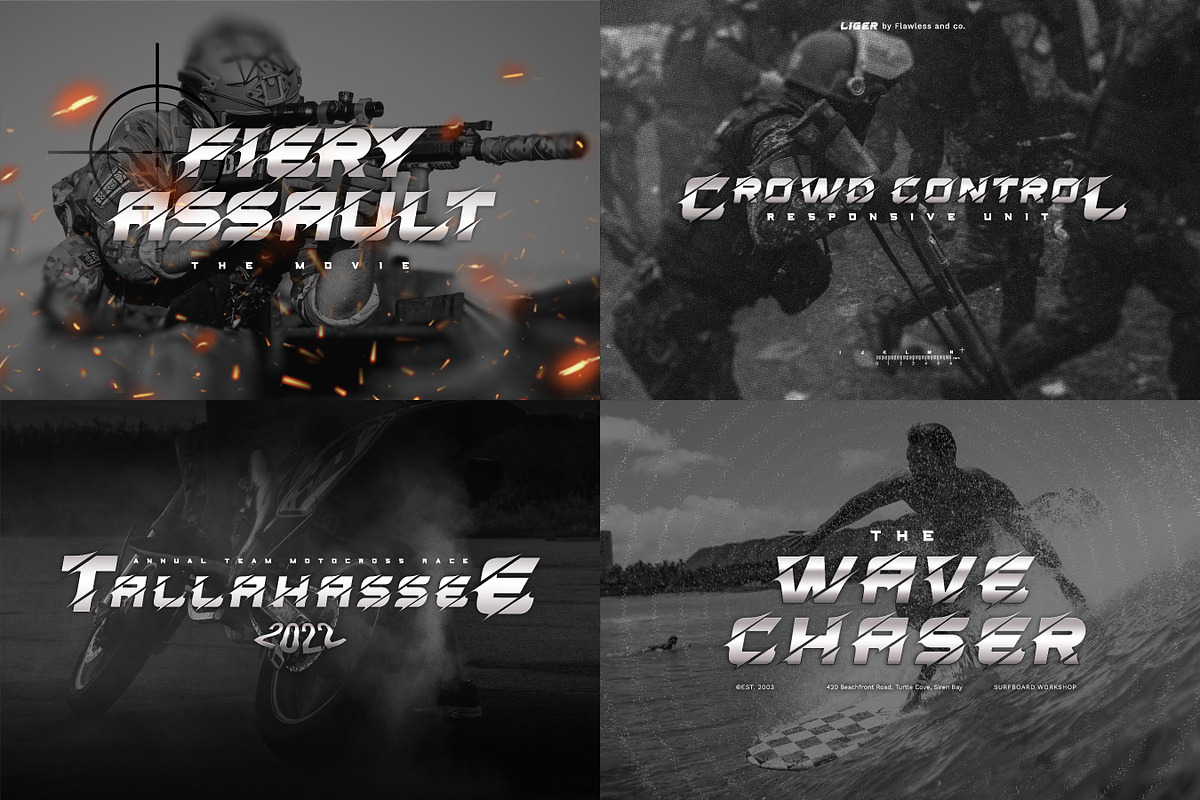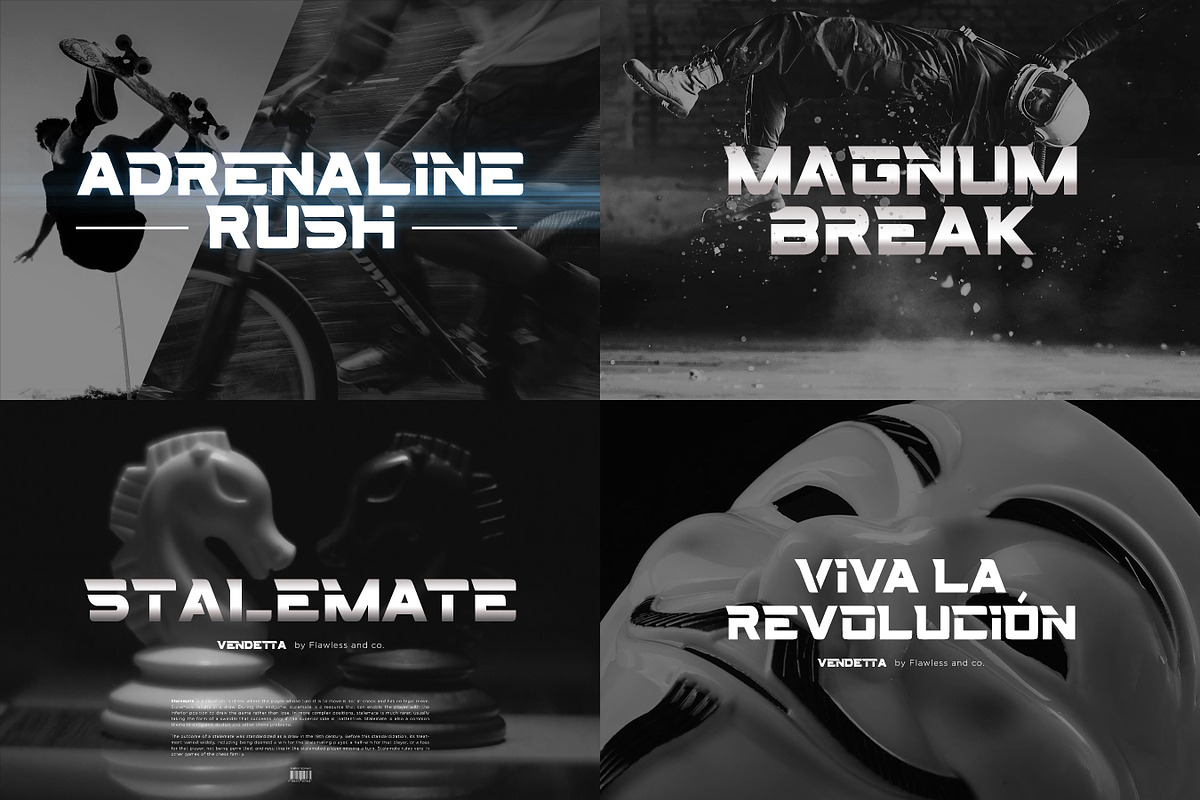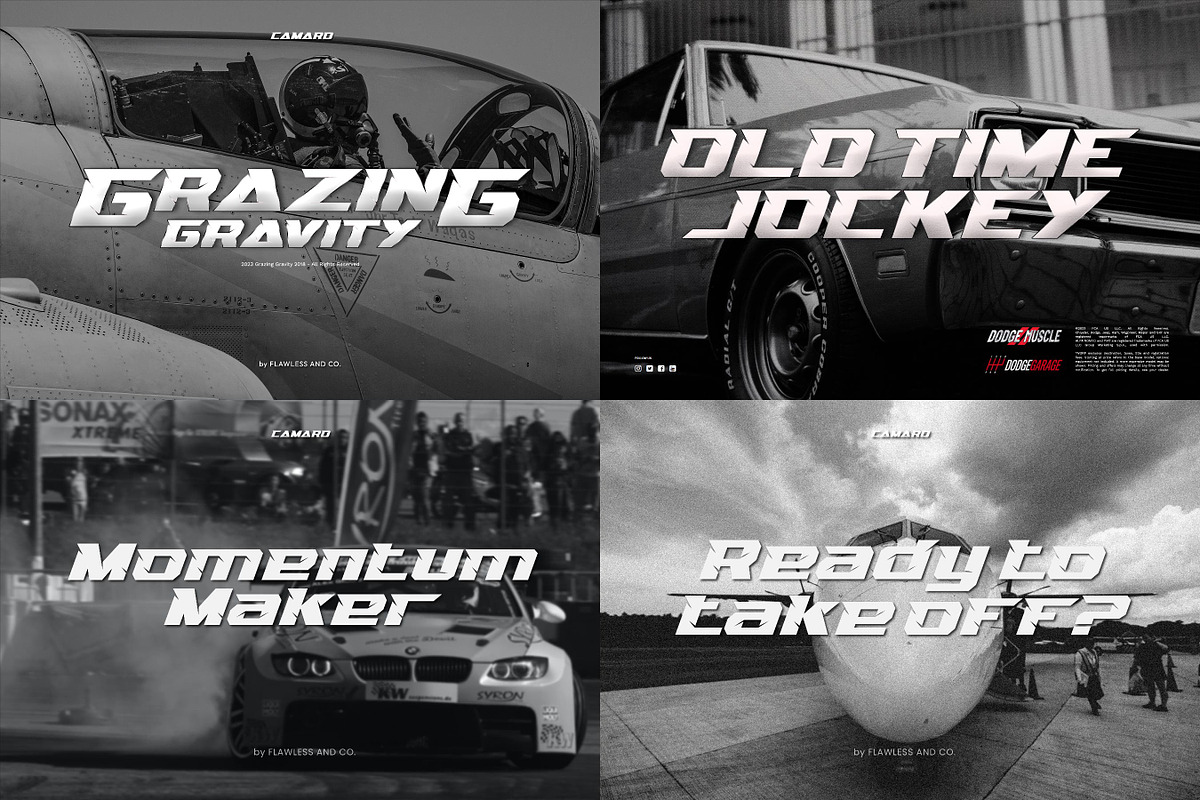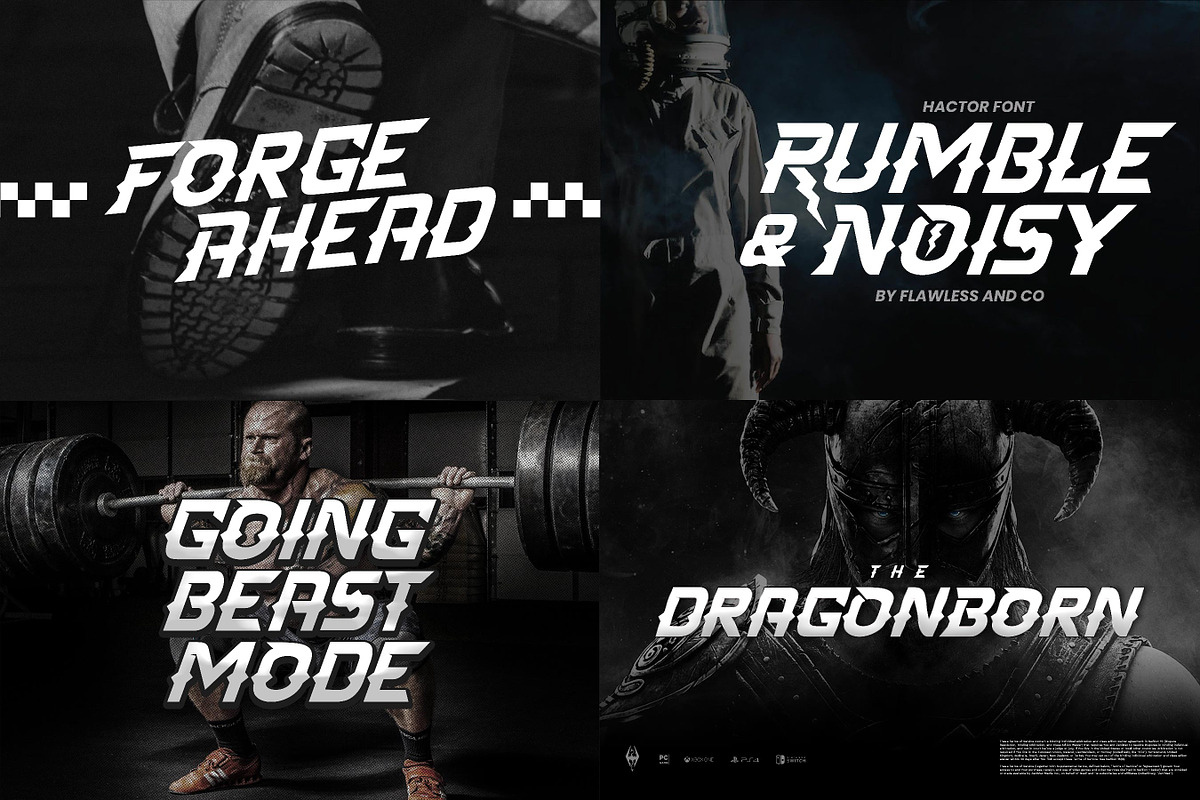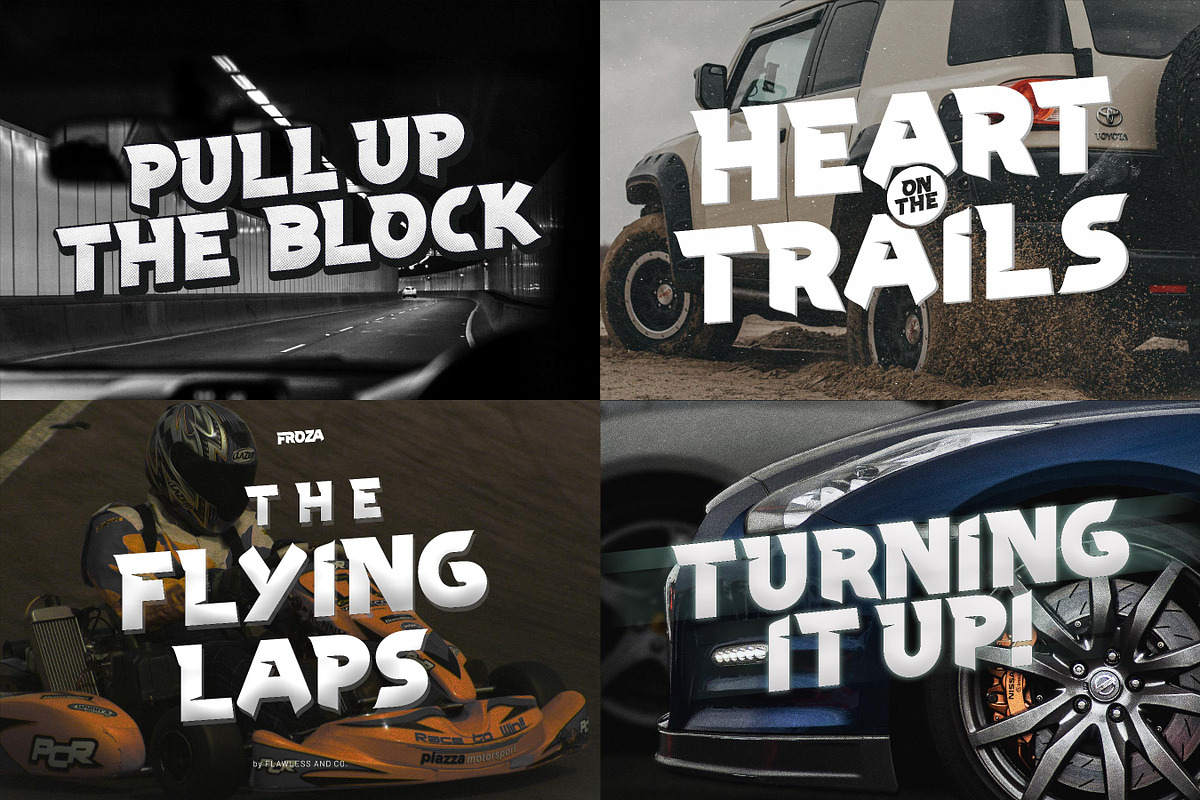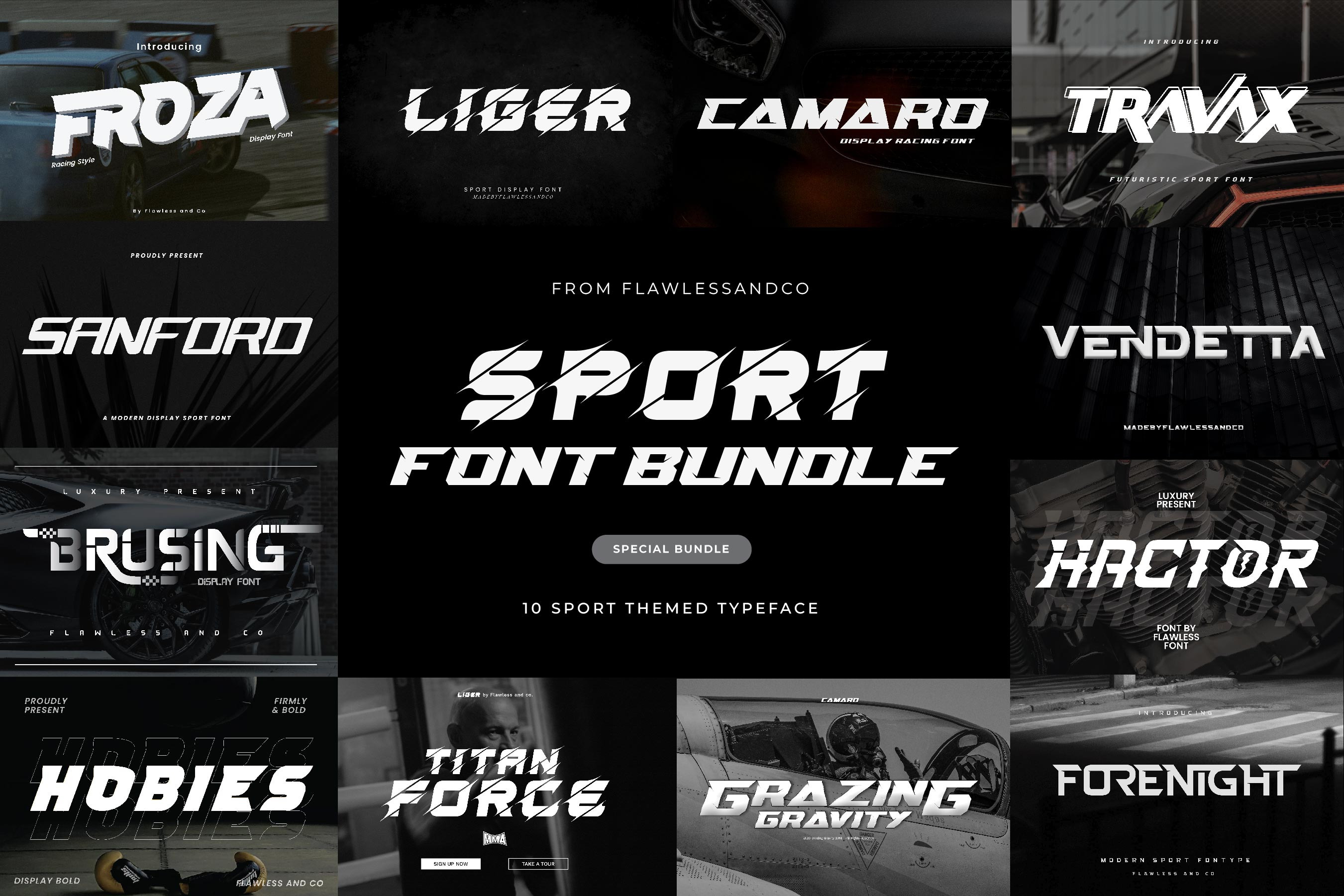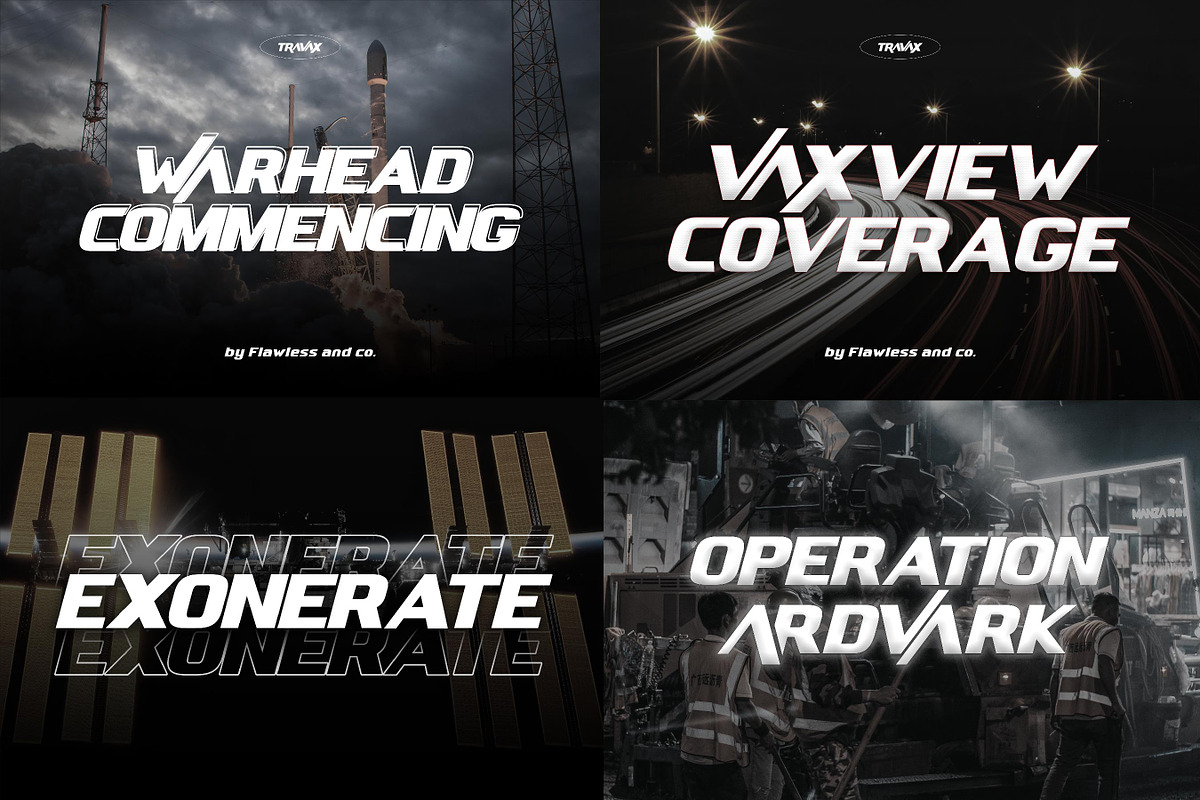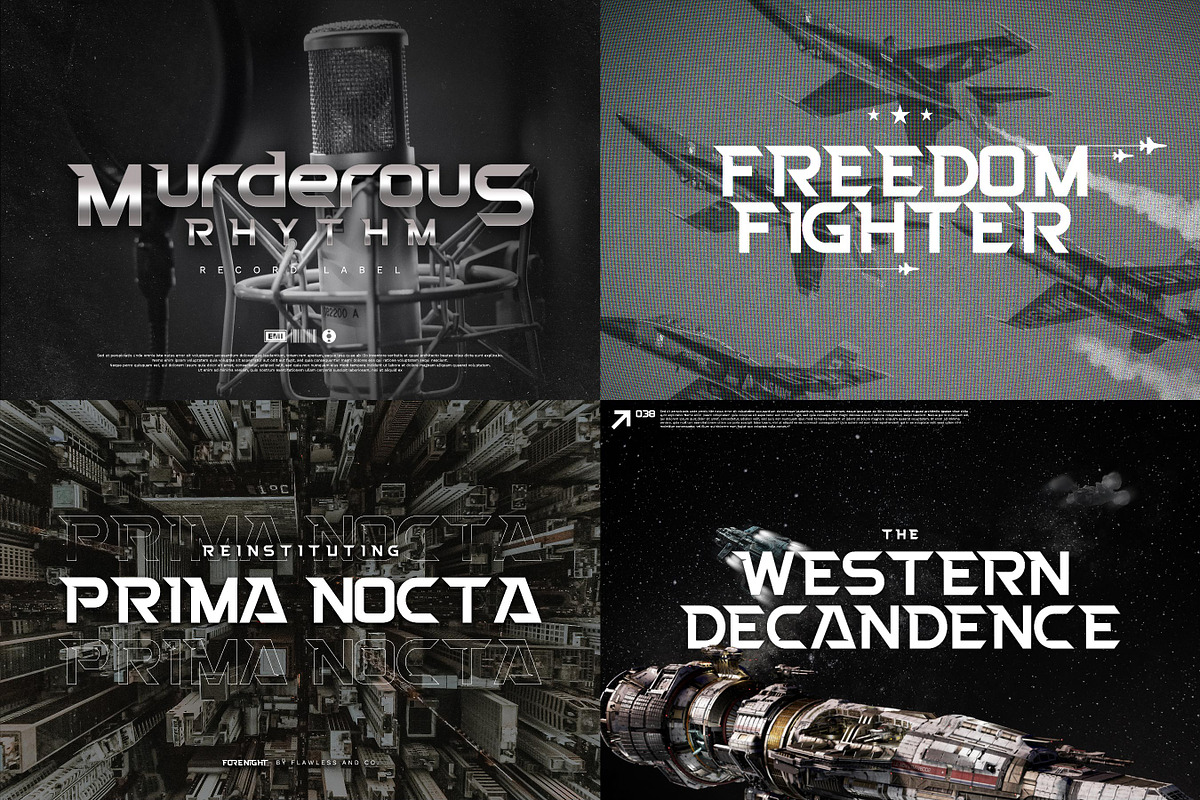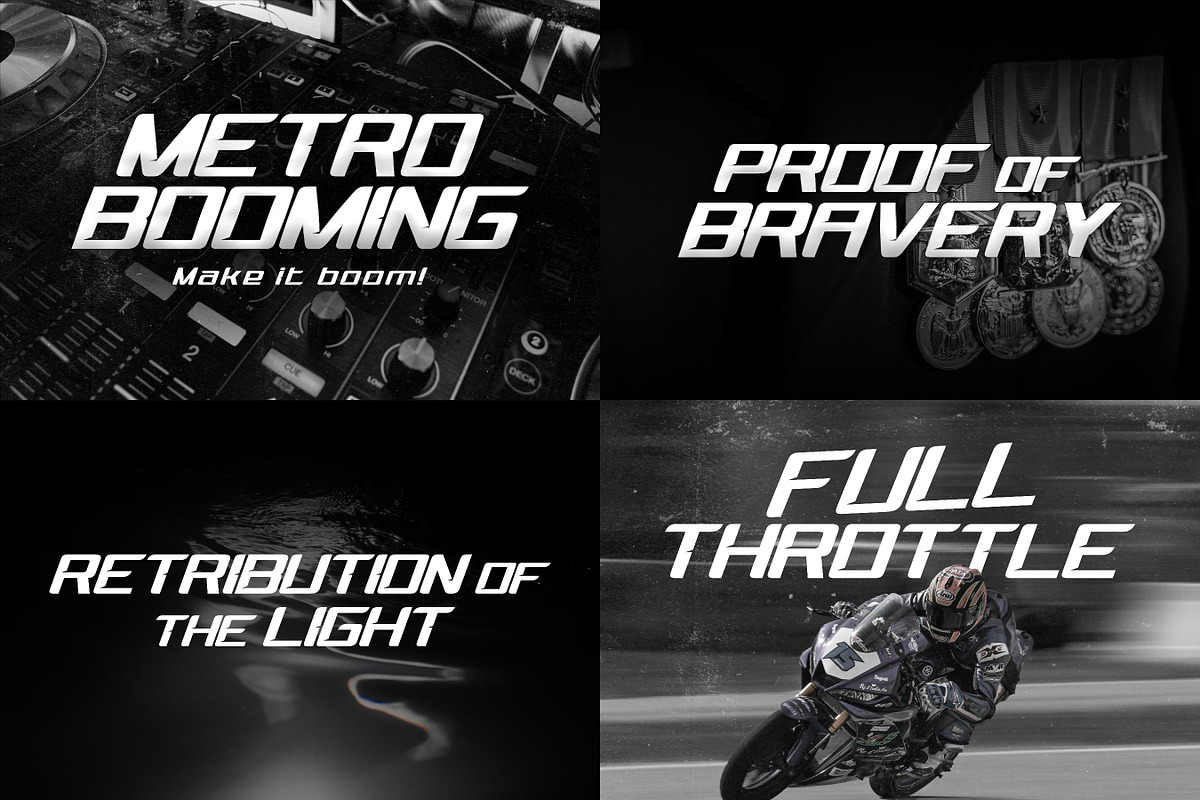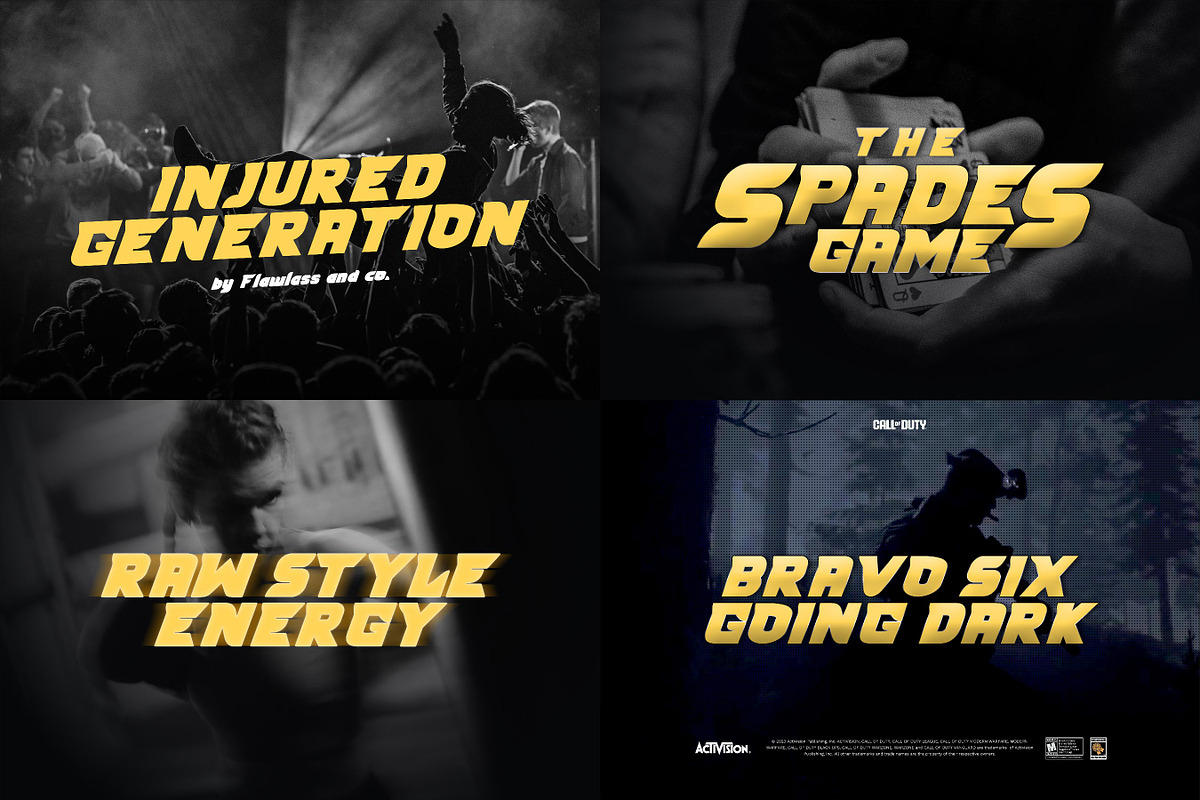
Sport Font Bundle
Introducing the "Sport Font Bundle" - A Fusion of Athletic Energy and High-Speed Style. Get ready to rev up your designs with our "Sport and Racing Font Bundle," a dynamic fusion of sports fonts and racing fonts that captures the spirit of athleticism and the adrenaline of high-speed competition. Whether you're creating sports team branding, racing event promotions, or fitness-related materials, this bundle provides an exciting array of fonts that exude energy, dynamism, and the thrill of the race.
This bundle include 10 high quality sport font. Suitable for any graphic designs such as branding materials, t-shirt, print, business cards, logo, poster, t-shirt, photography, quotes .etc
- Sandford
- Camaro
- Liger
- Forenight
- Vendetta
- Froza
- Travax
- Hobies
- Hoctor
- Brusing
With this font bundle, you'll have everything you need to elevate your designs and stand out from the crowd. Try mixing and matching the fonts to create unique combinations and add even more visual interest to your projects. Get This Funny Font Bundle today and take your designs to the next level!